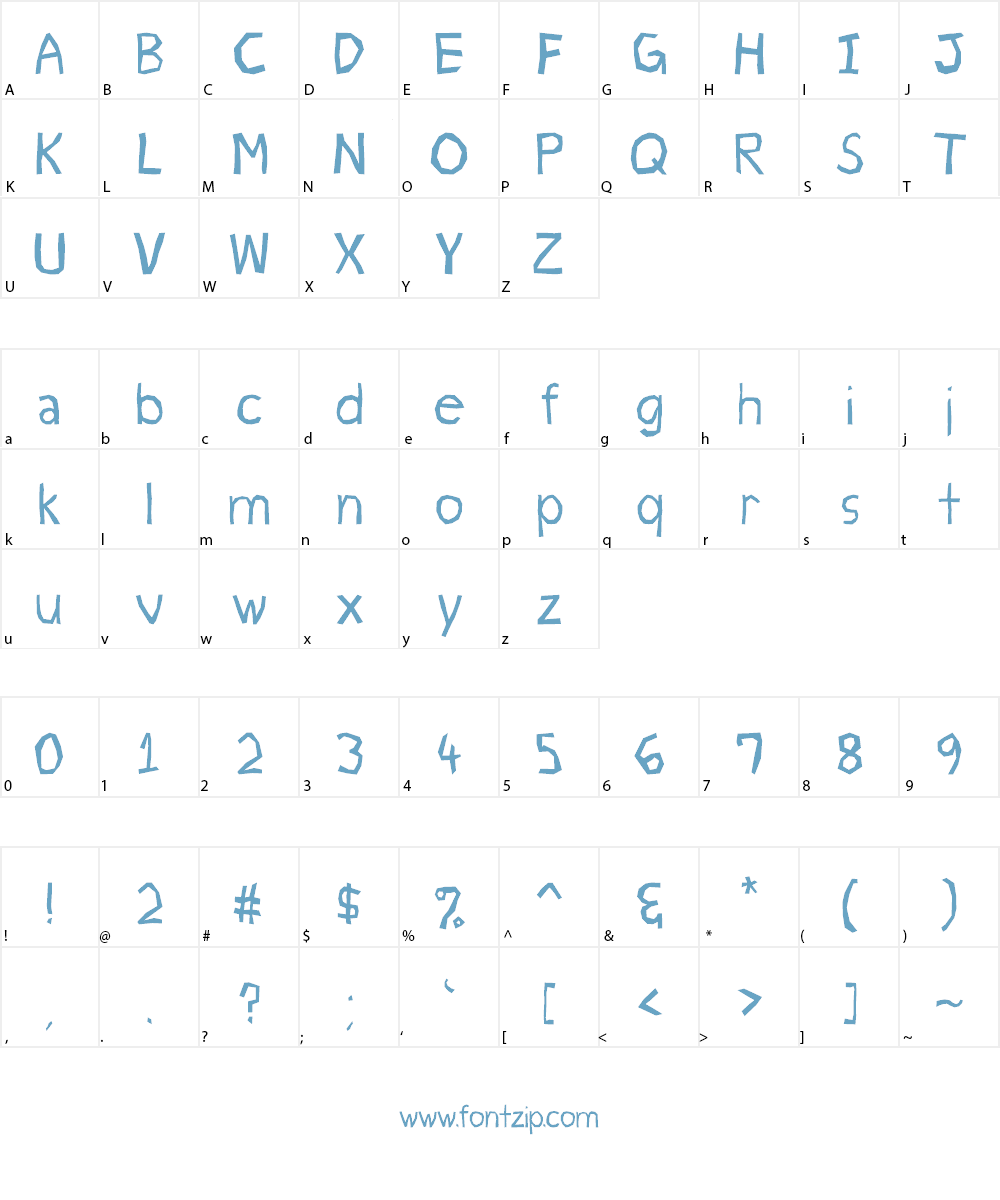
From the creator of Roundico, Writico & Writico 2 comes a new original font: Geometrico! A font that has only lines and no curves, Geometrico is best used as a header font. You'll see 2 extra characters in the font, so be ready!
P.S. Accented characters and other things coming soon!
07-06-2012: Remember me promising you about the 2 special characters? I saw that they're not included in the font, so I mapped them to the 2 private use characters.